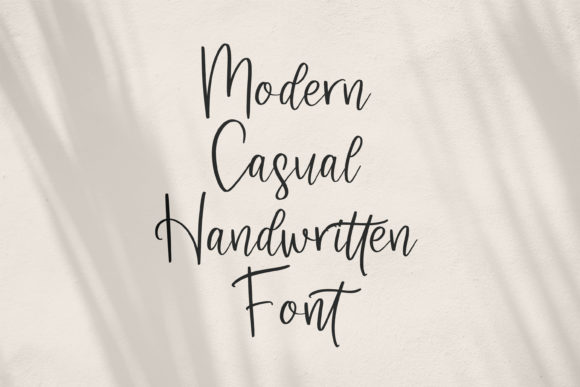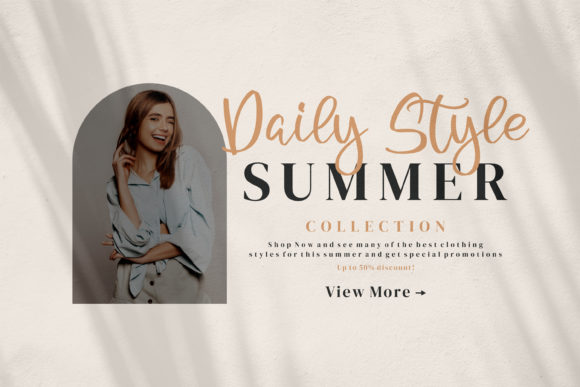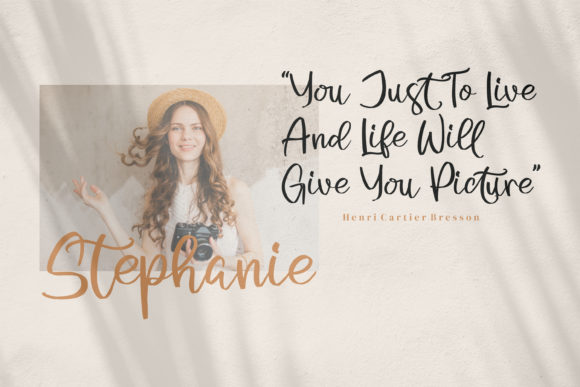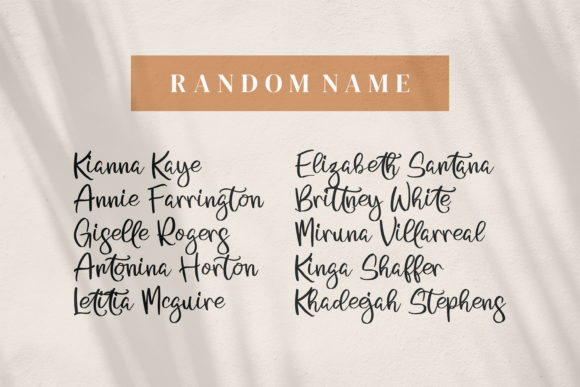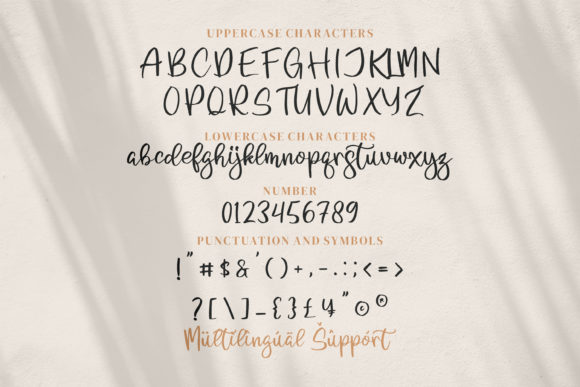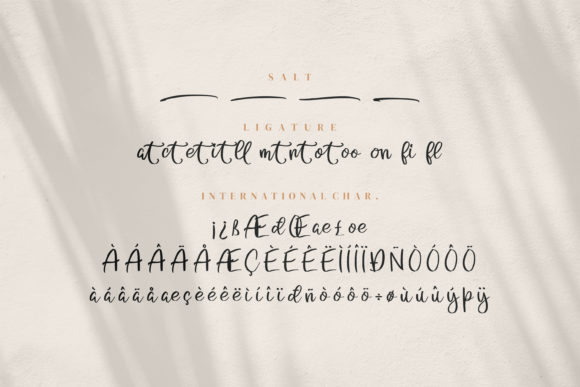
Introduction to Santosa Edgar Font
Have you ever found yourself staring at a blank page, trying to bring your creative vision to life? The cursor blinks, and the words just won’t flow. That’s when you need a little inspiration to spark your imagination. For designers, the right font can be the missing piece that takes your project from ordinary to extraordinary.
Enter the Santosa Edgar Font, a stunning handwritten font that exudes elegance and sophistication. With its unique, high-quality design, this font is perfect for any creative project that demands a touch of class. Whether you’re working on a free download or a commercial design, the Santosa Edgar Font is sure to elevate your work to the next level.
As a valuable design resource, the Santosa Edgar Font offers a transparent background, allowing you to easily combine it with other elements to create stunning visuals. And with its PUA encoding, accessing all the glyphs and swashes is a breeze, giving you endless possibilities to explore.
Key Features of Santosa Edgar Font
- High-quality, professional font ideal for creative projects, such as graphic design, digital art, and typography.
- Unique, modern design with a transparent background, allowing for seamless integration with various design elements.
- Designed to be highly legible, with clear and crisp letterforms that are perfect for body text and headings.
- Includes a comprehensive character set, including Latin and Cyrillic alphabets, punctuation, and symbols.
Honest Review: Santosa Edgar Font
I recently had the chance to work with the Santosa Edgar Font, and I’m excited to share my thoughts on this design resource. As a designer, I’m always on the lookout for high-quality fonts that can elevate my creative projects.
One of the things that stood out to me about the Santosa Edgar Font was its versatility. It’s available for free download, which makes it a great option for designers who are working on a budget. The font itself has a unique, elegant feel that makes it perfect for a variety of design projects, from branding to editorial work.
- High-quality design: The Santosa Edgar Font is well-crafted and looks great on both screens and print materials.
- Transparent background: The font has a transparent background, which makes it easy to use with a variety of backgrounds and design elements.
- Limited character set: The font only includes a limited character set, which may make it difficult to use for longer blocks of text.
- No italic or bold styles: The font only comes in a regular style, which may limit its versatility.
Overall, I was impressed with the Santosa Edgar Font. While it may have some limitations, its unique design and high-quality feel make it a great option for designers who are looking for a free, elegant font to use in their projects.
The Santosa Edgar Font is ideal for a variety of creative projects, including social media graphics, posters, flyers, presentations, and documents. Its high-quality design and transparent background make it a versatile and valuable design resource.